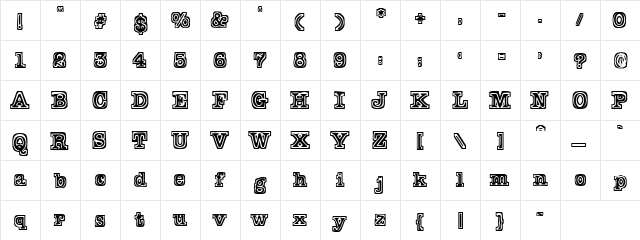
TypeBlock Regular
| Foundry | sunwalk |
| Designer | Andy Krahling |
Design Context for TypeBlock Typeface
TypeBlock offers clean, dependable letterforms without strong stylistic allegiance, making it a practical choice for designers who need flexibility.